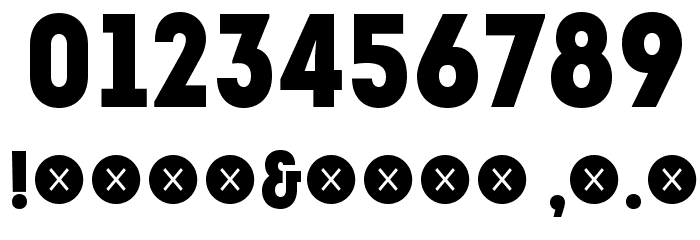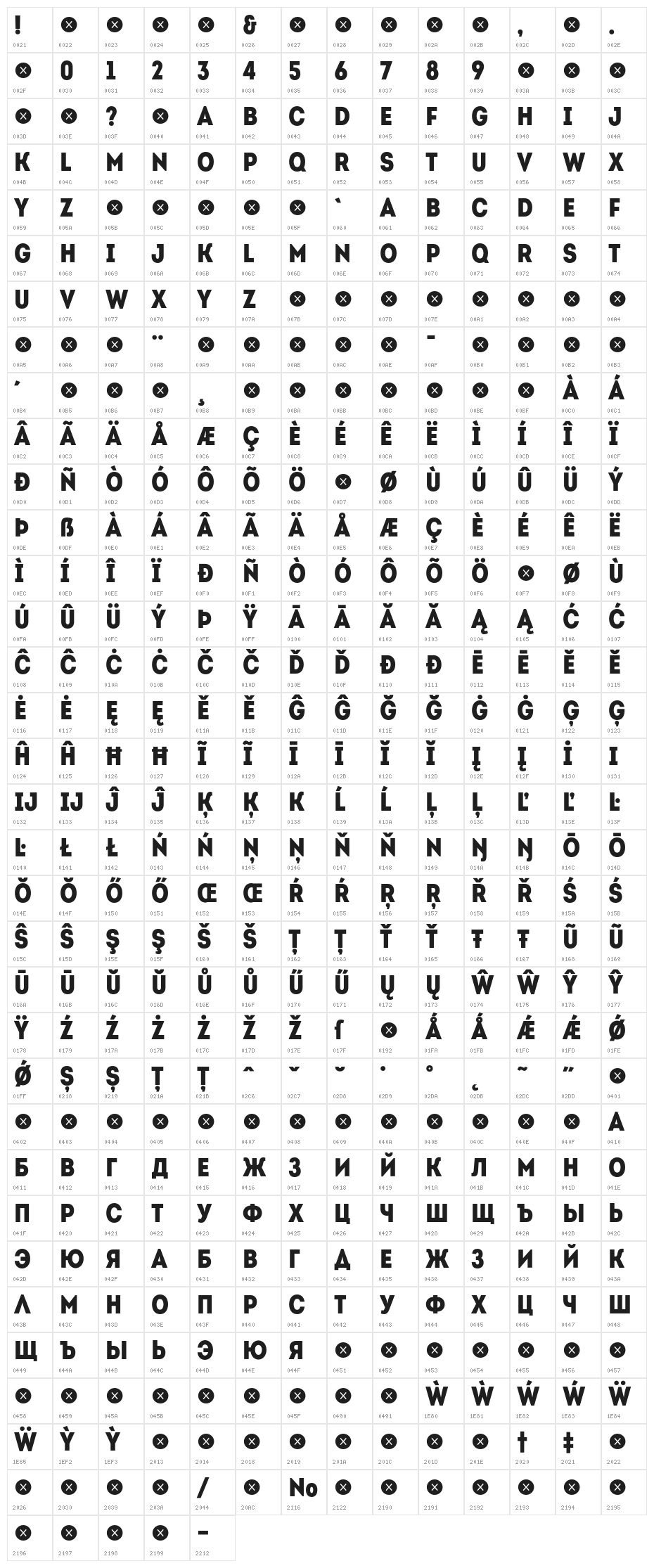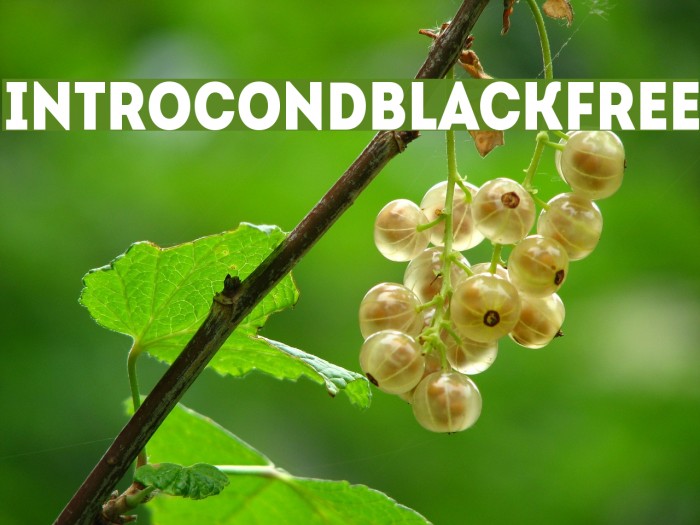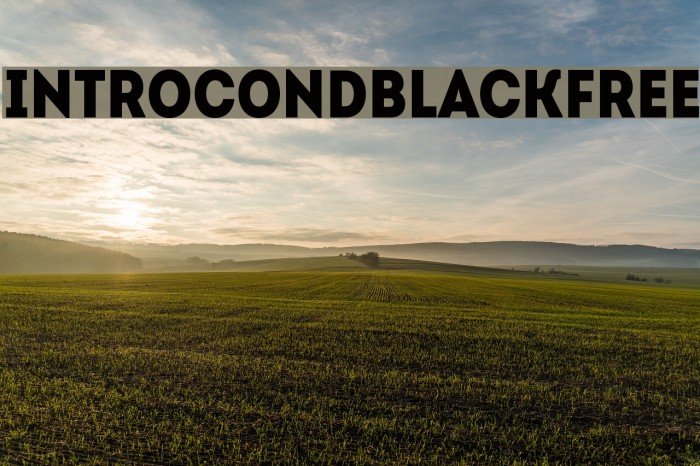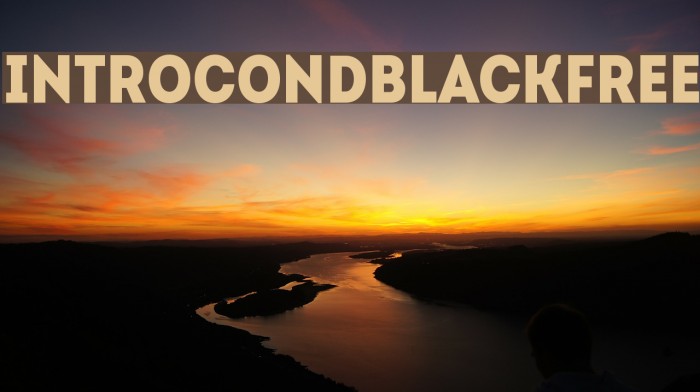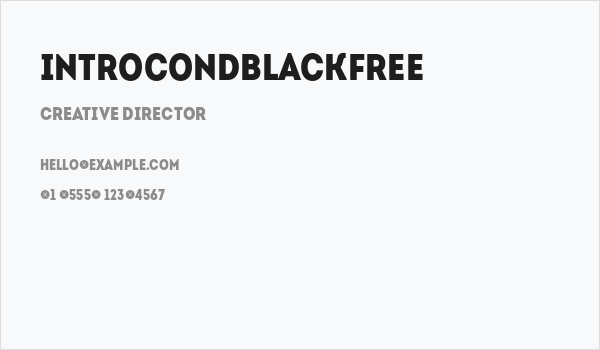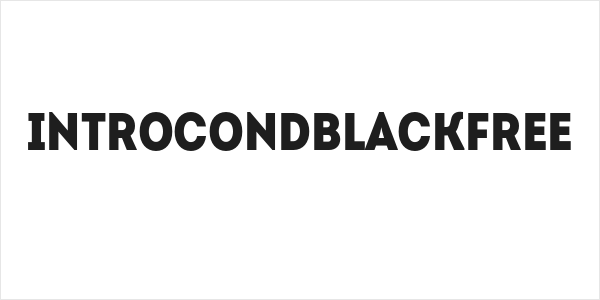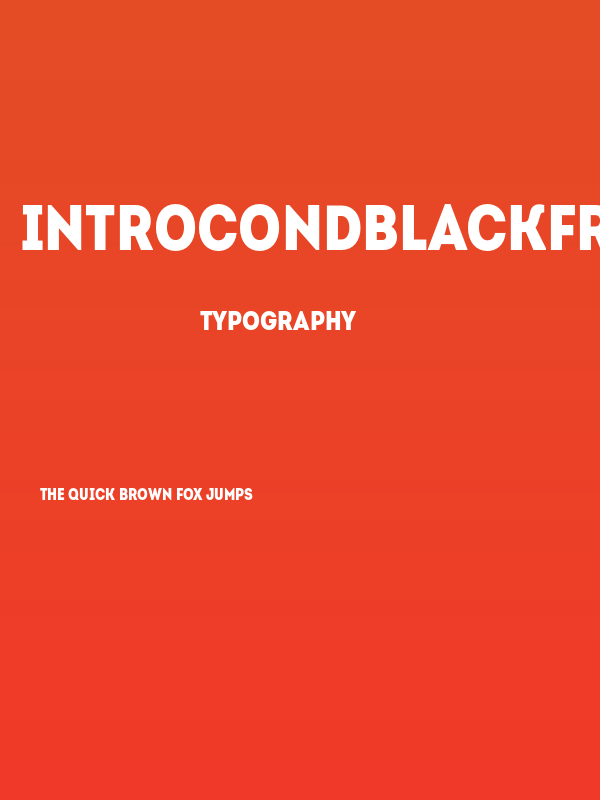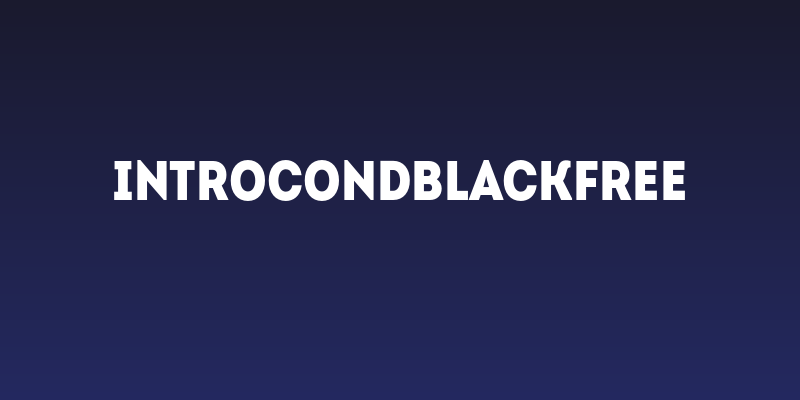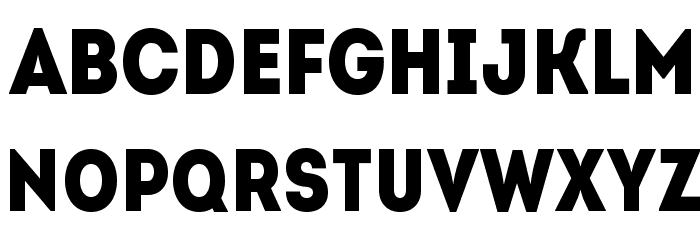
IntroCondBlackFree Font
IntroCondBlackFree Description
This font features a bold and impactful design, characterized by its thick, uniform strokes and condensed letterforms. The uppercase and lowercase letters maintain a consistent weight, creating a strong visual presence. The numerals are equally bold, ensuring readability and emphasis. The special characters, including punctuation and symbols, are designed to match the overall boldness, making them stand out effectively. This font's condensed nature allows for efficient use of space while maintaining legibility, making it suitable for attention-grabbing headlines and titles.